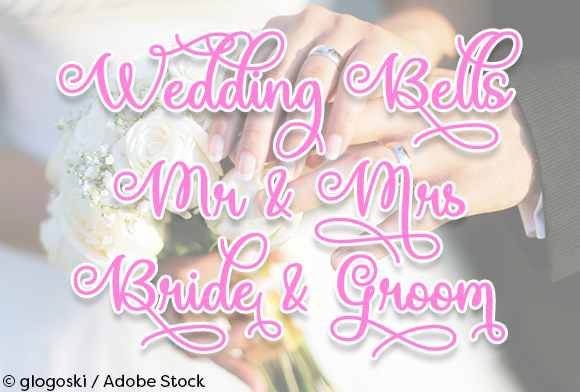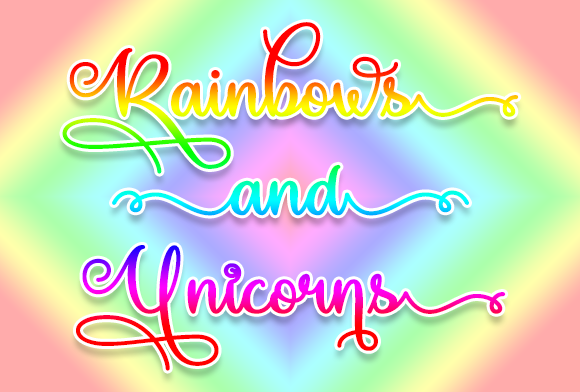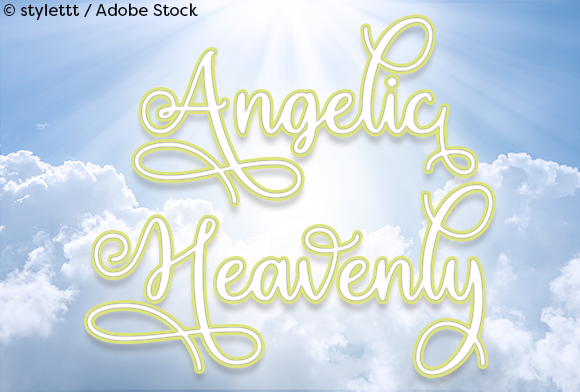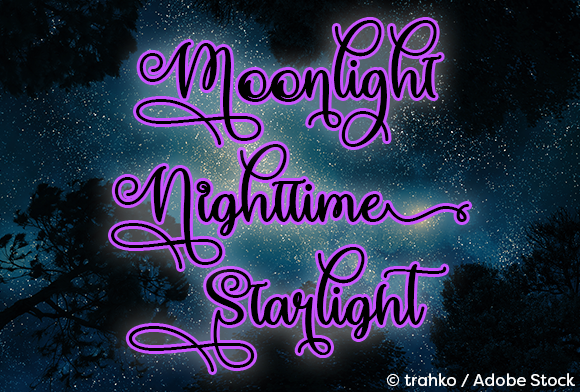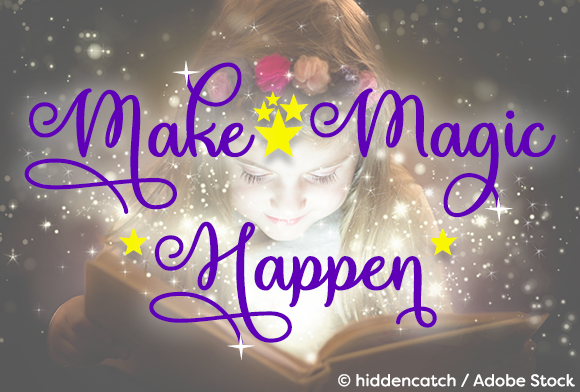
Introduction to Make Magic Happen Font
Make Magic Happen is a stylish, calligraphy font that will add a touch a magic to your projects.
Make Magic Happen is a stylish, calligraphy font that will add a touch a magic to your projects! SPECIAL SYMBOLS Type _ (underscore) for the star cluster Type * (asterisk) for the star Type [] (bracke
Key Features of Make Magic Happen Font